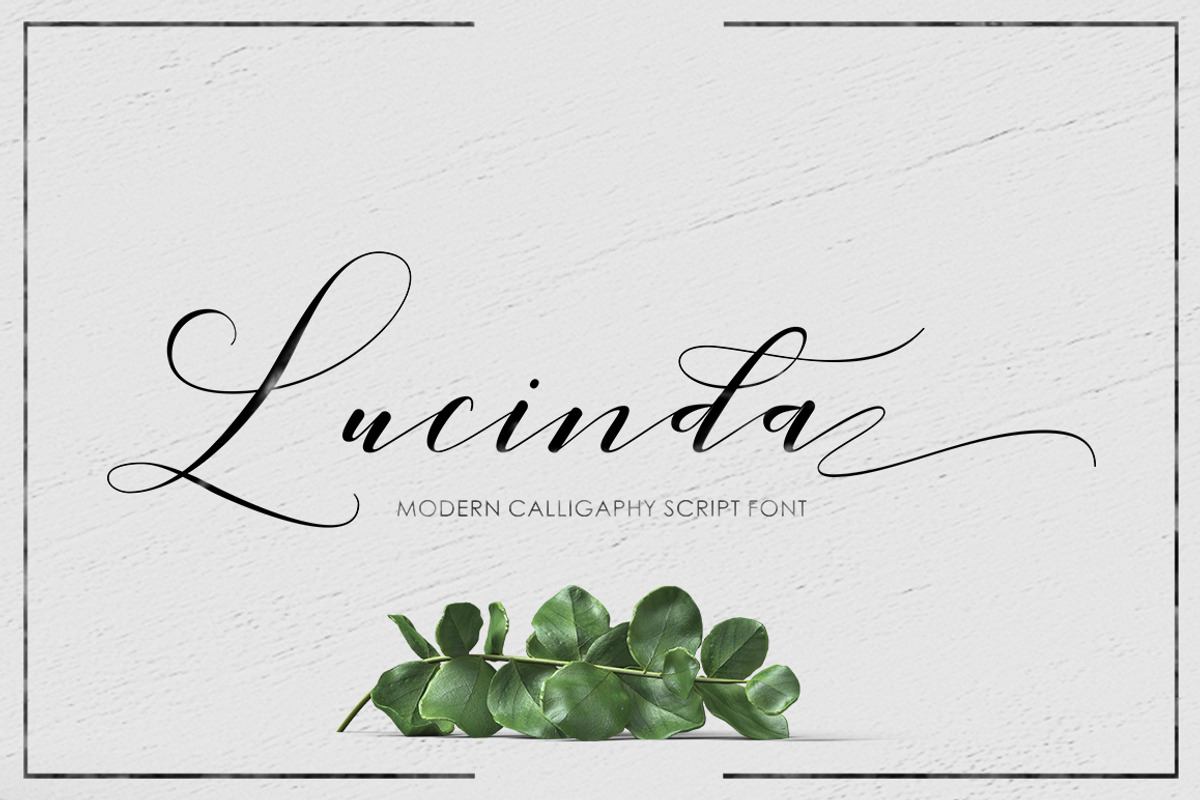
Lucinda Script Font Free Download is an elegant and flowing script typeface that combines the beauty of calligraphy with modern readability. With its smooth curves and graceful strokes, Lucinda Script is perfect for wedding invitations, logos, branding, social media graphics, and any design that requires a sophisticated, handwritten touch.
This font’s natural, flowing style adds a personal and artistic flair to your typography, making it ideal for projects that need to convey elegance, romance, and creativity. Whether you’re designing a chic fashion brand logo or crafting heartfelt invitations, Lucinda Script enhances your designs with a polished, classy look.
The font includes uppercase and lowercase letters, numerals, punctuation, and multilingual support. It’s compatible with most design software and works beautifully in both print and digital formats.